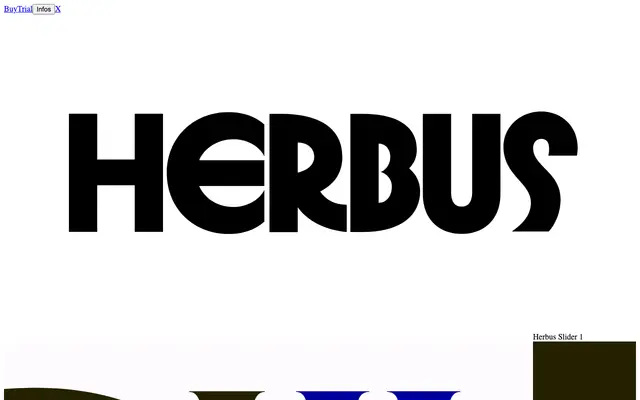
Herbus
OTT Foundry · Eliott Grunewald · 2019
A six-style geometric family rooted in the formal language of Herb Lubalin and the tight, image-like typography of 1960s–80s American graphic design.
Drawing from Avant Garde Gothic, Serif Gothic and Busorama, Herbus synthesises the expressive geometry and compact spacing that defined a particular strain of mid-century American advertising and editorial work. Each of the three weights — Regular, Medium and Bold — comes with a serif counterpart, and the family includes ligatures and alternates intended to facilitate dense, graphically charged compositions. First released in 2019 and expanded to six styles in 2025, it is a considered homage rather than a straight revival.
A geometric display family drawing formally from Avant Garde Gothic, Serif Gothic and Busorama, favouring expressive geometry and tight spacing characteristic of mid-century American advertising typography. The serif variants extend its range without shifting its fundamental display character.